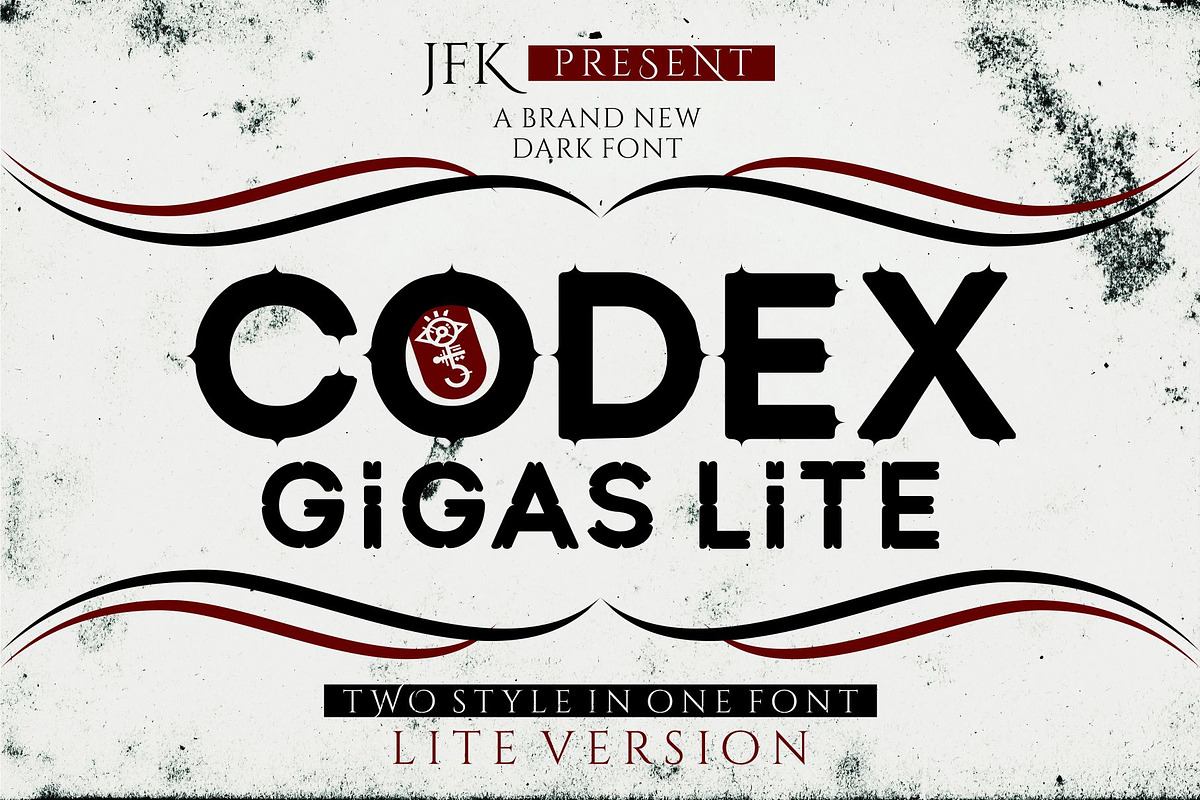
Codex Gigas (lite) Free Download
Codex Gigas (lite) Font Free Download is a mysterious and gothic-style typeface inspired by medieval manuscripts and ancient texts. With its ornate details and historical flair, this font is ideal for fantasy book covers, dark-themed branding, occult projects, role-playing games, and anything that demands an old-world, mystical presence.
Whether you’re designing an ancient grimoire-inspired zine or branding a fantasy podcast, this font transports your audience into another era—one of candlelit secrets and shadowy wisdom.
Let your words carry the weight of legend with Codex Gigas, and make your message feel like it was written in the margins of history itself.